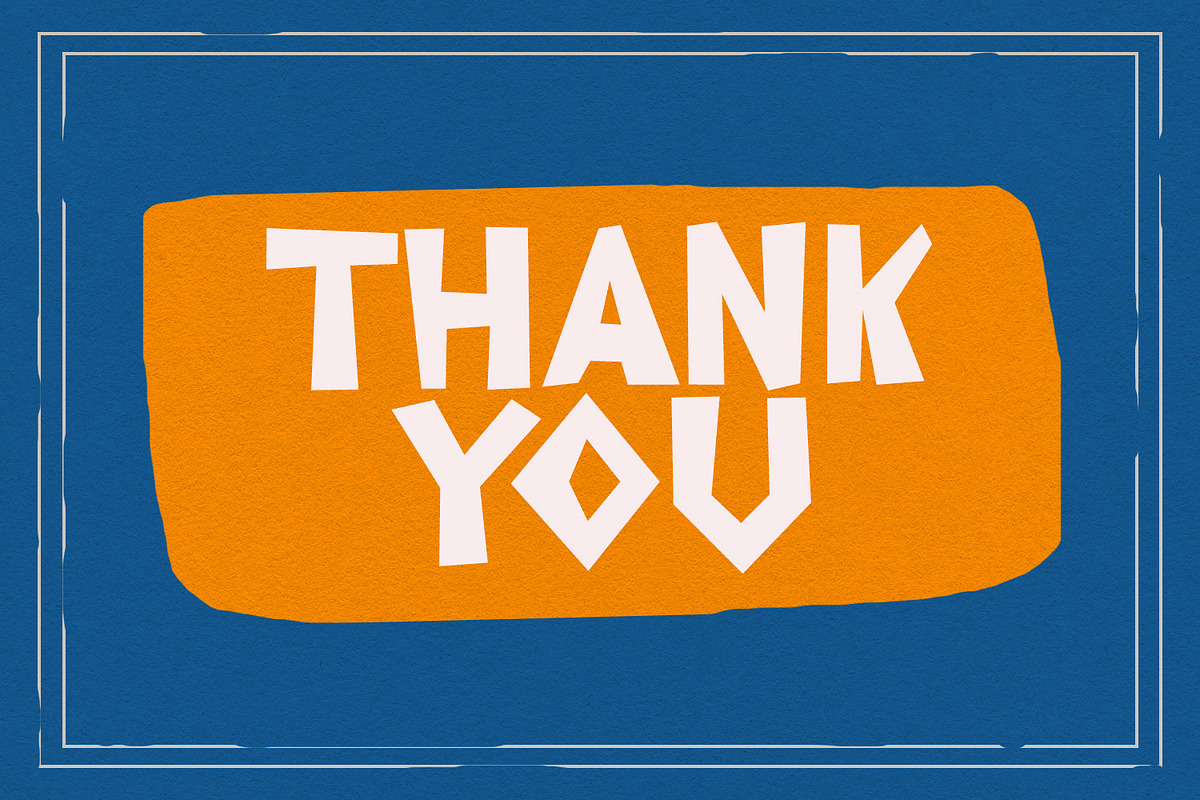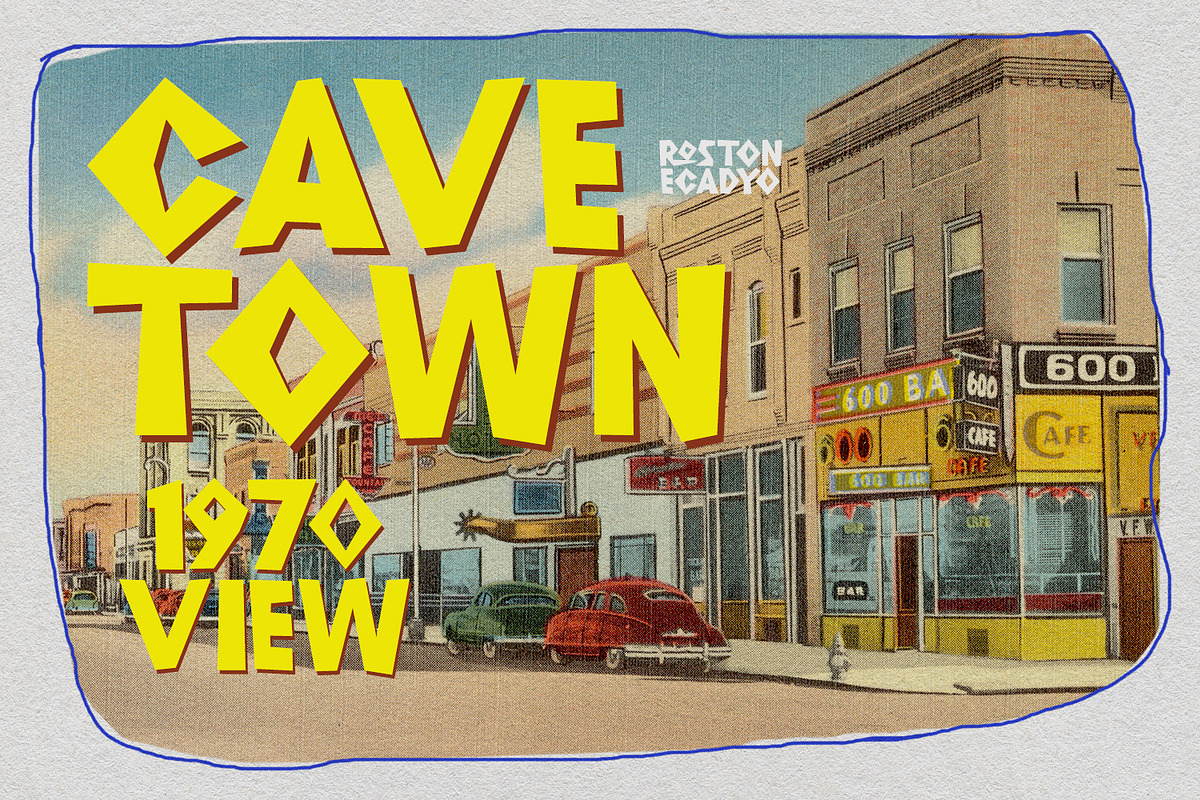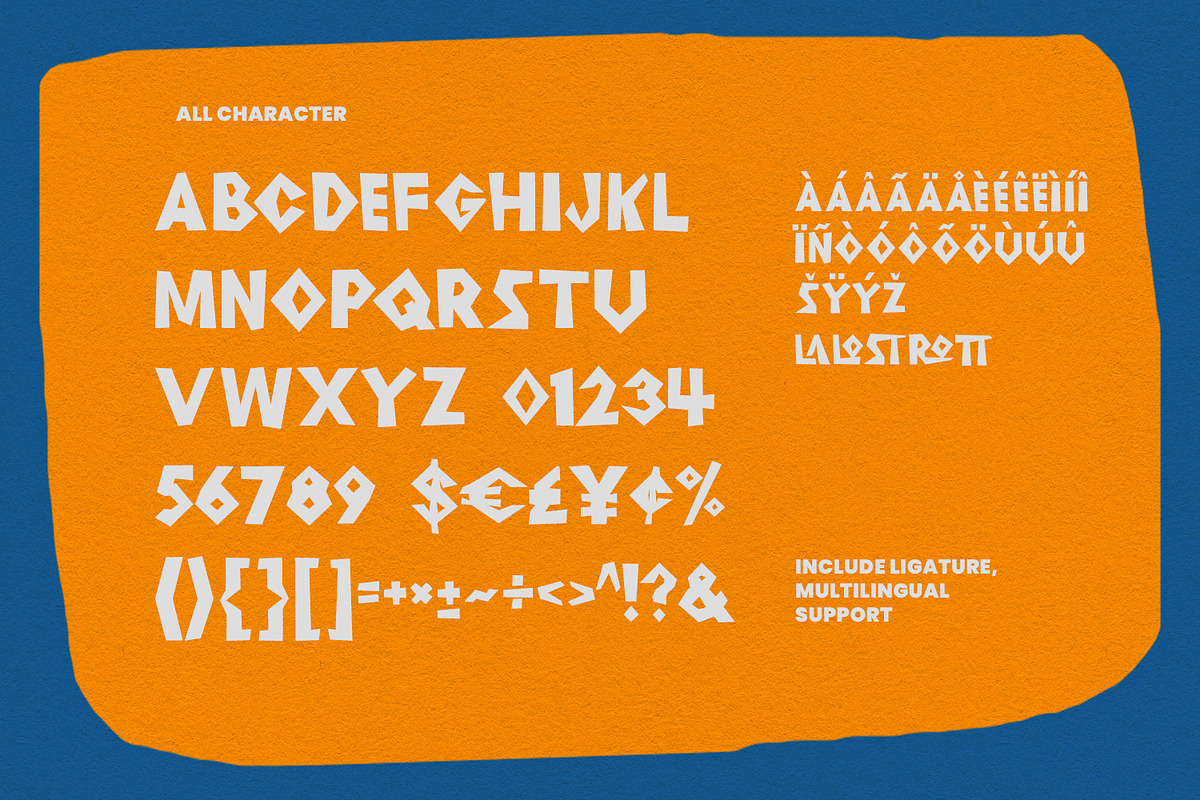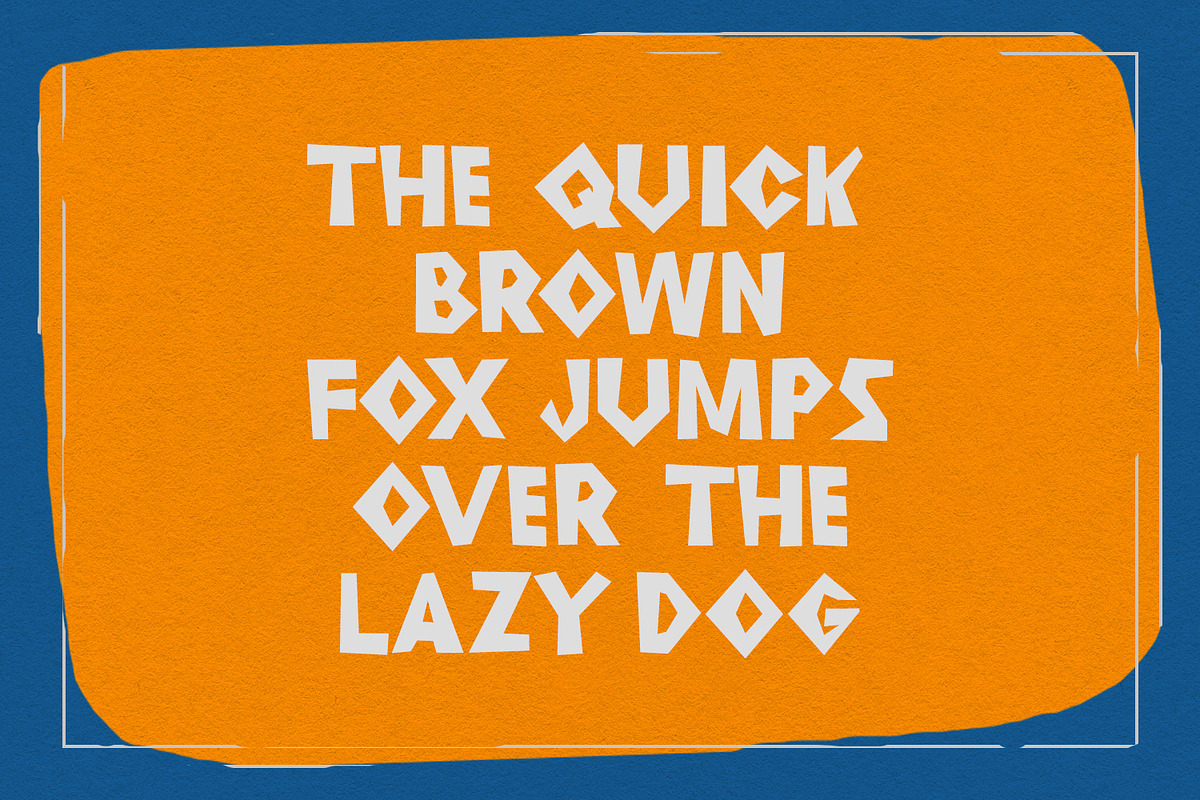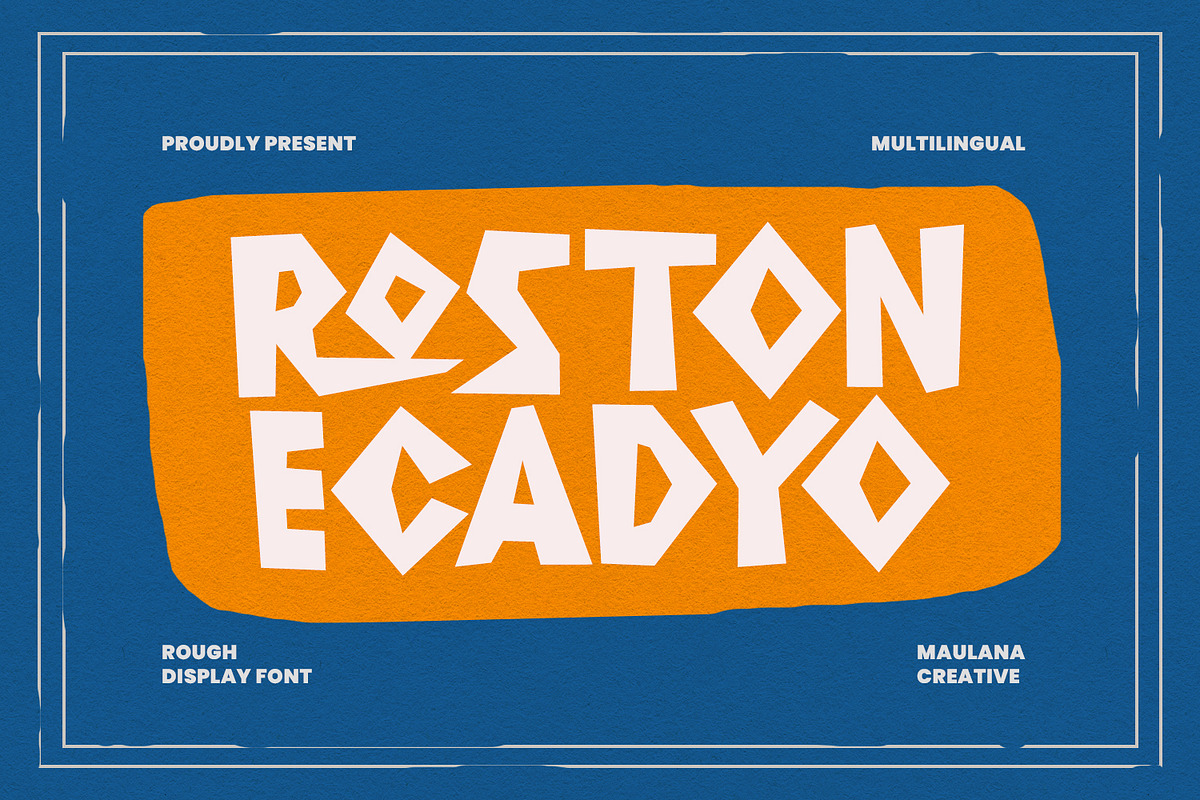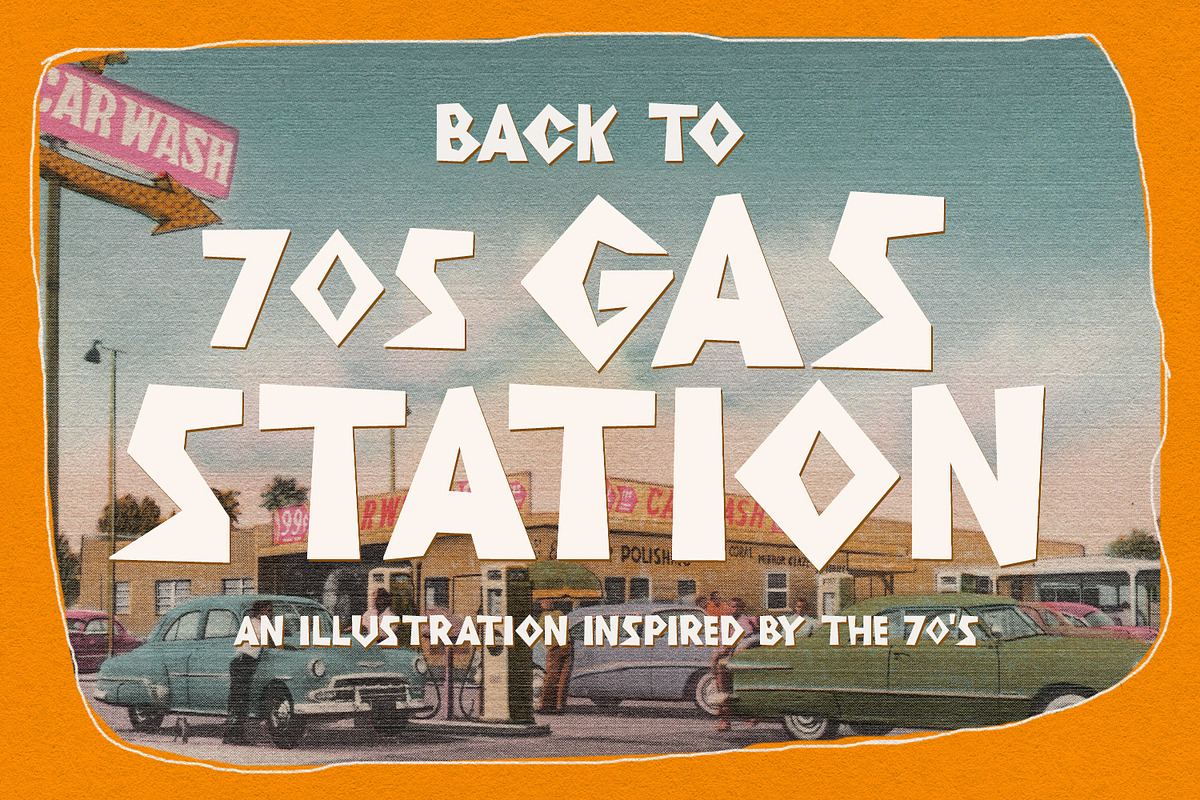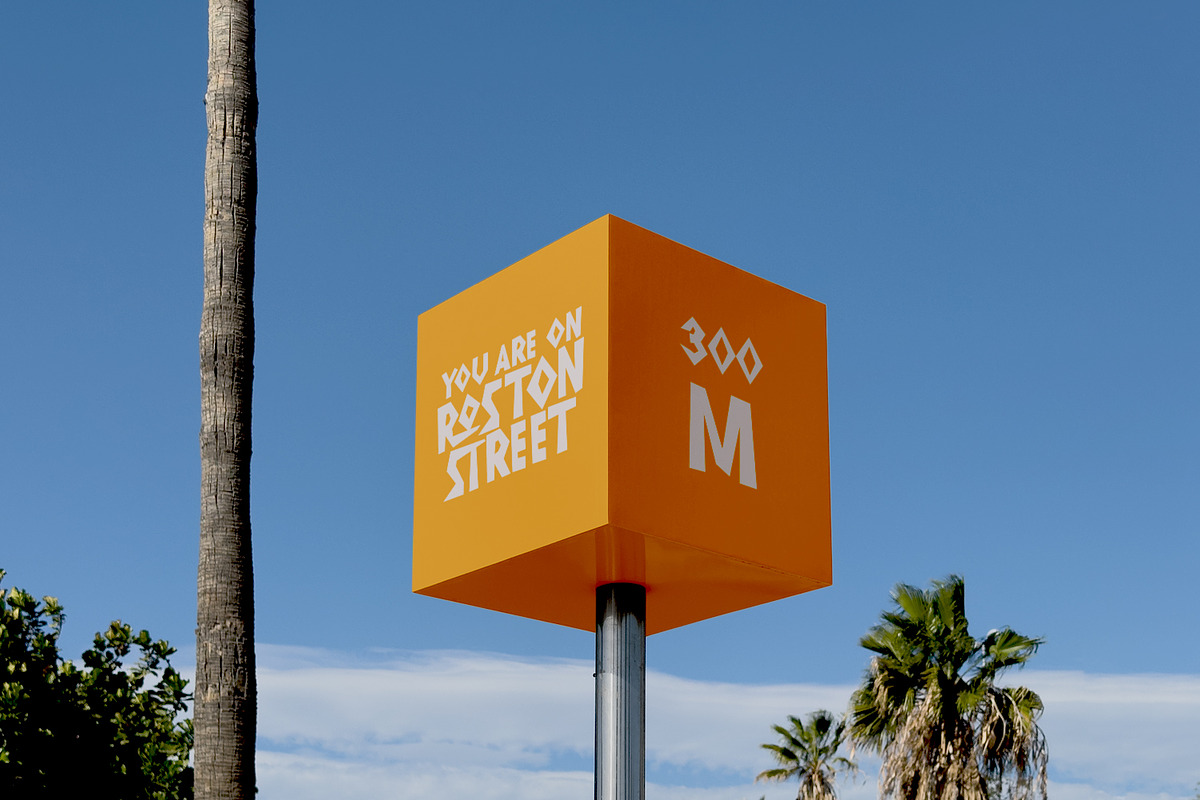
Roston Ecadyo Sans Serif Display Fon
Roston Ecadyo is a sans serif display font. With bold stroke, fun character with a bit of ligatures. To give you an extra creative work. Roston Ecadyo font support multilingual more than 100+ language. This font is good for logo design, Social media, Movie Titles, Books Titles, a short text even a long text letter and good for your secondary text font with sans or serif. Make a stunning work with Roston Ecadyo font.